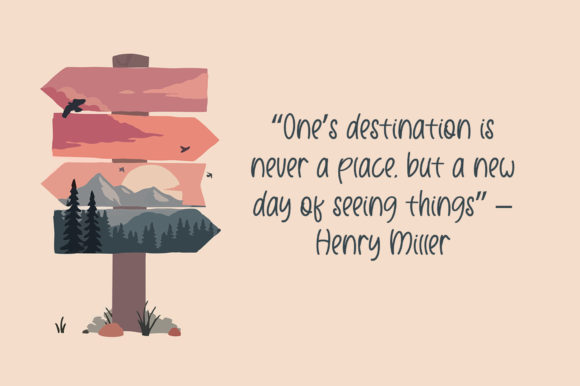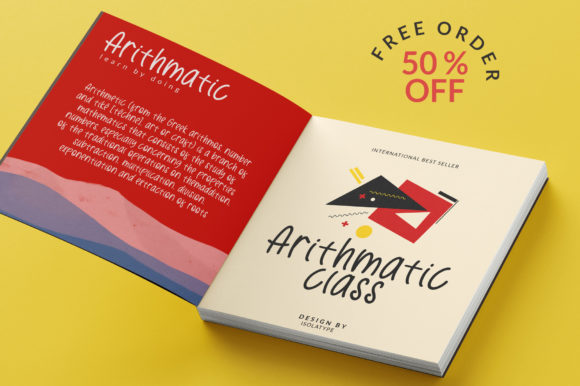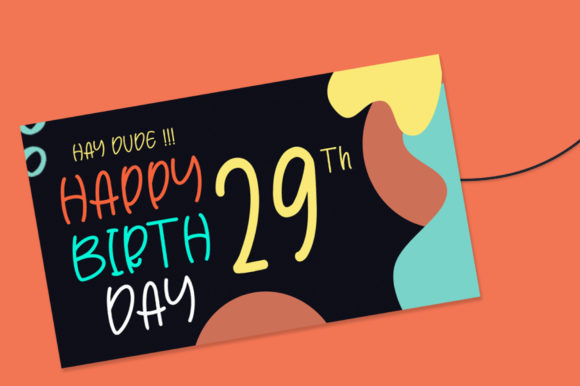
Introduction to Simple Glory Font
Have you ever stumbled upon the perfect design element while working on a creative project, and you just can’t imagine your project without it? For designers, those “aha” moments are what make the process truly enjoyable. One such moment came when we discovered the Simple Glory Font, a beautiful, high-quality handwritten font that adds a relaxed and playful touch to any design.
As a valuable design resource, the Simple Glory Font is perfect for designers who want to add a casual vibe to their projects. Its informal style makes it an ideal choice for creative projects that require a friendly, approachable feel. Whether you’re working on a brochure, social media graphics, or even a logo, this font is sure to bring a smile to your client’s face.
Key Features of Simple Glory Font
- High-quality design resource perfect for creative projects, offering a unique and elegant touch.
- Features a transparent background, making it easy to overlay text on images or use as a standalone design element.
- Comes in a single size, making it easy to scale and adapt to different design requirements.
- Designed with a high resolution of 300 DPI, ensuring crisp and clear text even at larger sizes.
- Unique characteristics include a minimalist aesthetic and a subtle, yet distinctive flair, making it an ideal choice for those seeking a simple yet striking font.
Honest Review: Simple Glory Font
As a designer, I’m always on the lookout for high-quality design resources to elevate my creative projects. Recently, I stumbled upon the Simple Glory Font, and I’m excited to share my honest review with you.
Here’s what works well: ✨ The Simple Glory Font has a clean and elegant design that’s perfect for modern projects. The font is highly legible, making it easy to read even in small sizes. The transparent background feature is also a great touch, allowing for seamless integration with any design.
Here are some of its key features:
- High-quality design with clean lines and elegant curves
- Legible and readable even in small sizes
As with any font, there are some limitations: ⚠️ The Simple Glory Font is a sans-serif font, which may not be suitable for projects that require a more traditional or serif font style. Additionally, the font may not be compatible with all operating systems or devices.
Overall, I’m impressed with the Simple Glory Font. It’s a great addition to any designer’s toolkit, and its high-quality design and transparent background make it a valuable resource for creative projects. With its free download option, it’s definitely worth checking out.
The Simple Glory Font is a versatile design resource that can be used for a variety of creative projects, including business cards, brochures, posters, and social media graphics. Its high quality and transparent background make it an ideal choice for designers who want to add a touch of elegance to their designs.
To get the most out of the Simple Glory Font, try combining it with other design elements, such as images and graphics, to create a visually appealing design. You can also experiment with different font sizes, colors, and arrangements to find the perfect balance for your project.